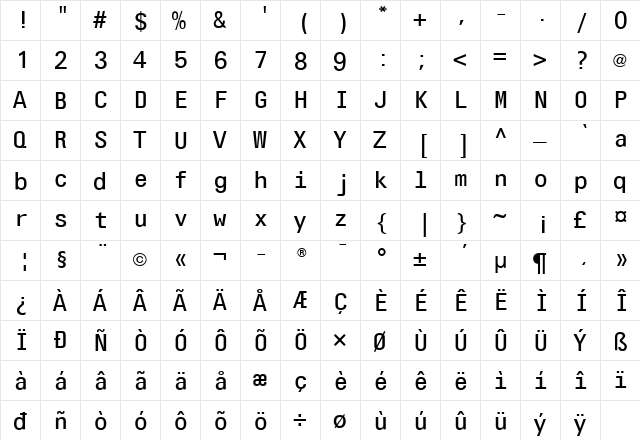
Olympia LT Light Regular
Design Context for Olympia LT Light Typeface
Olympia LT Light takes a measured approach to typography — its balanced proportions and neutral character make it a reliable workhorse for both digital and print work. Its slender proportions lend an understated elegance to any composition.